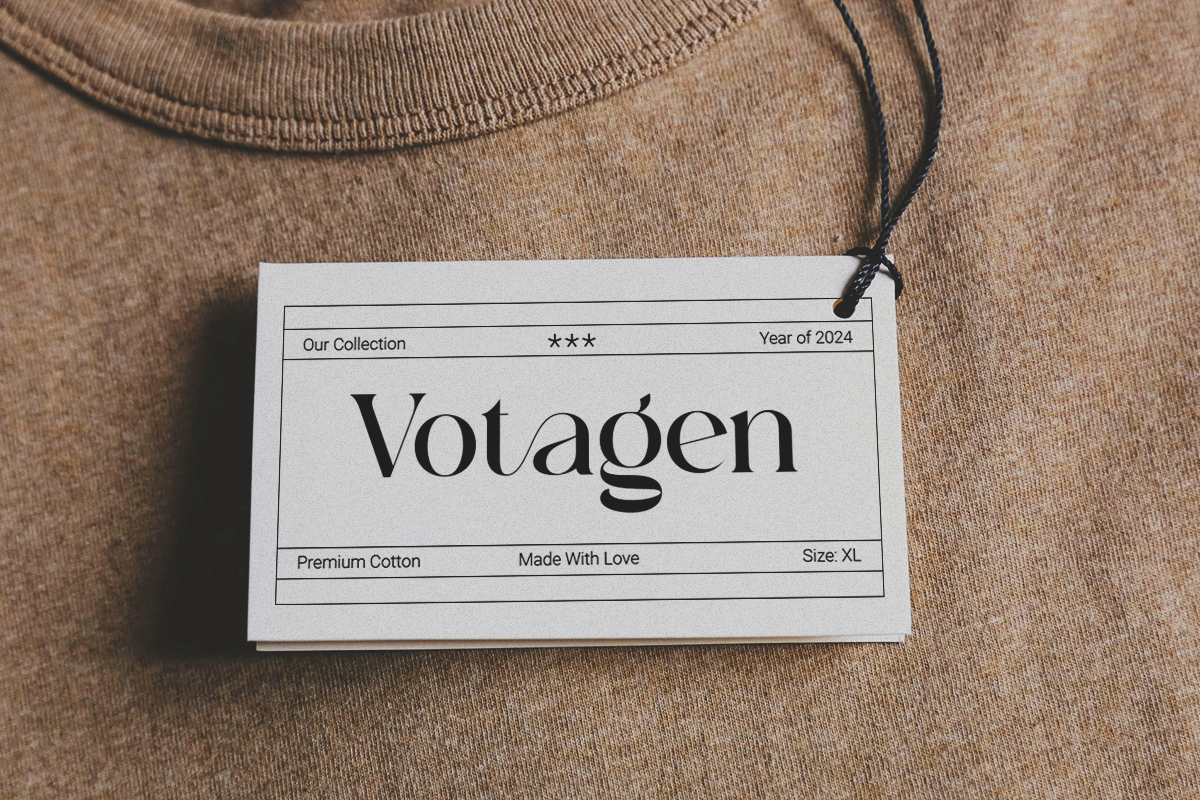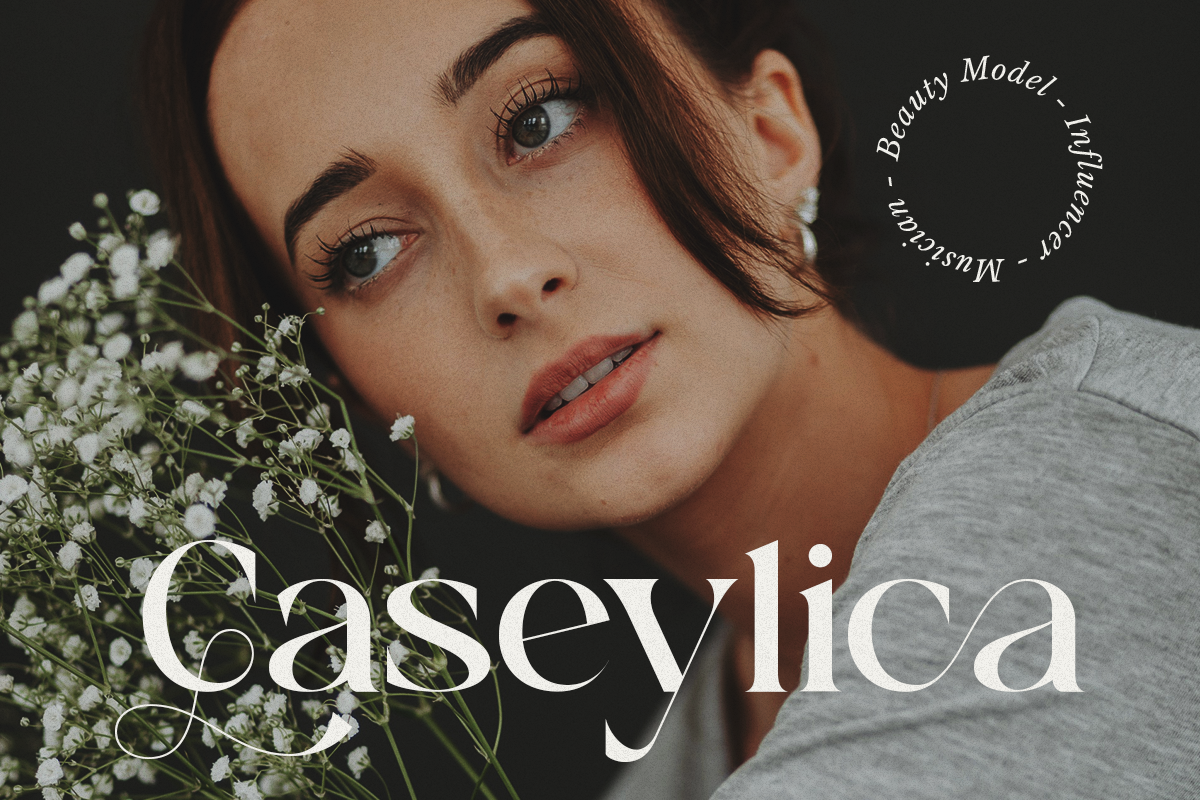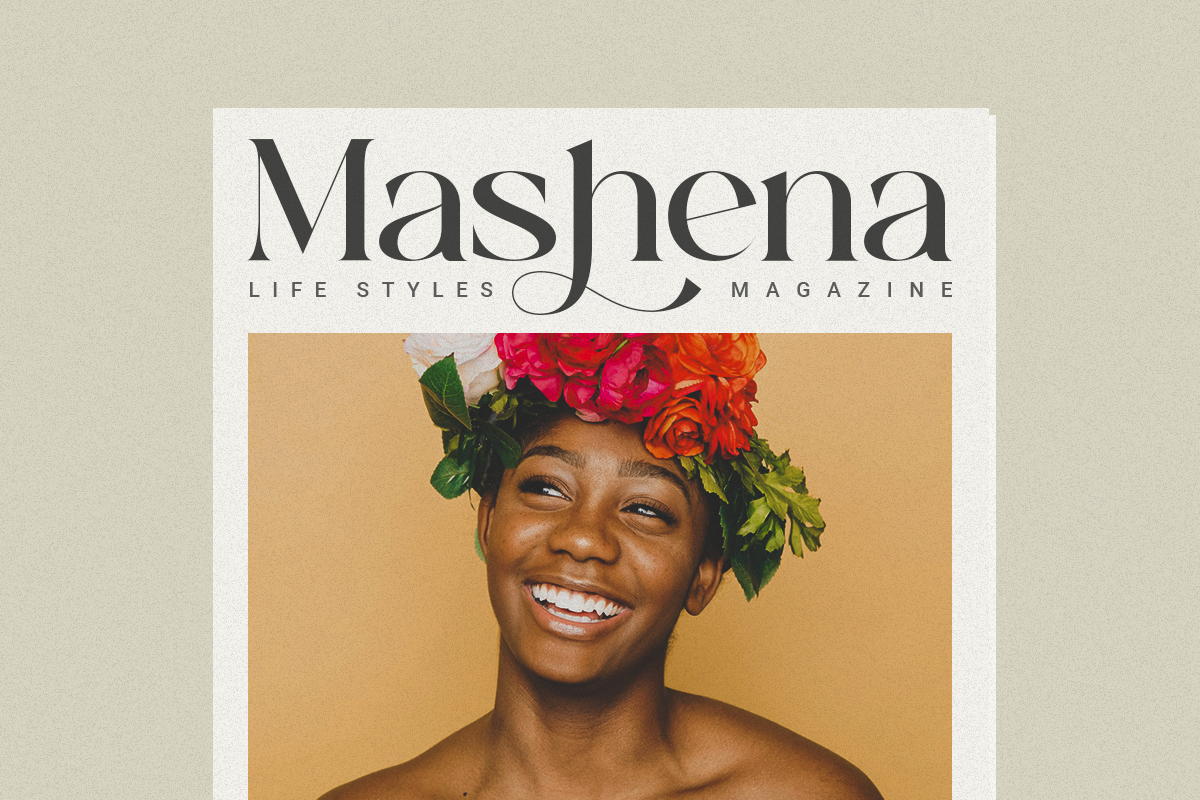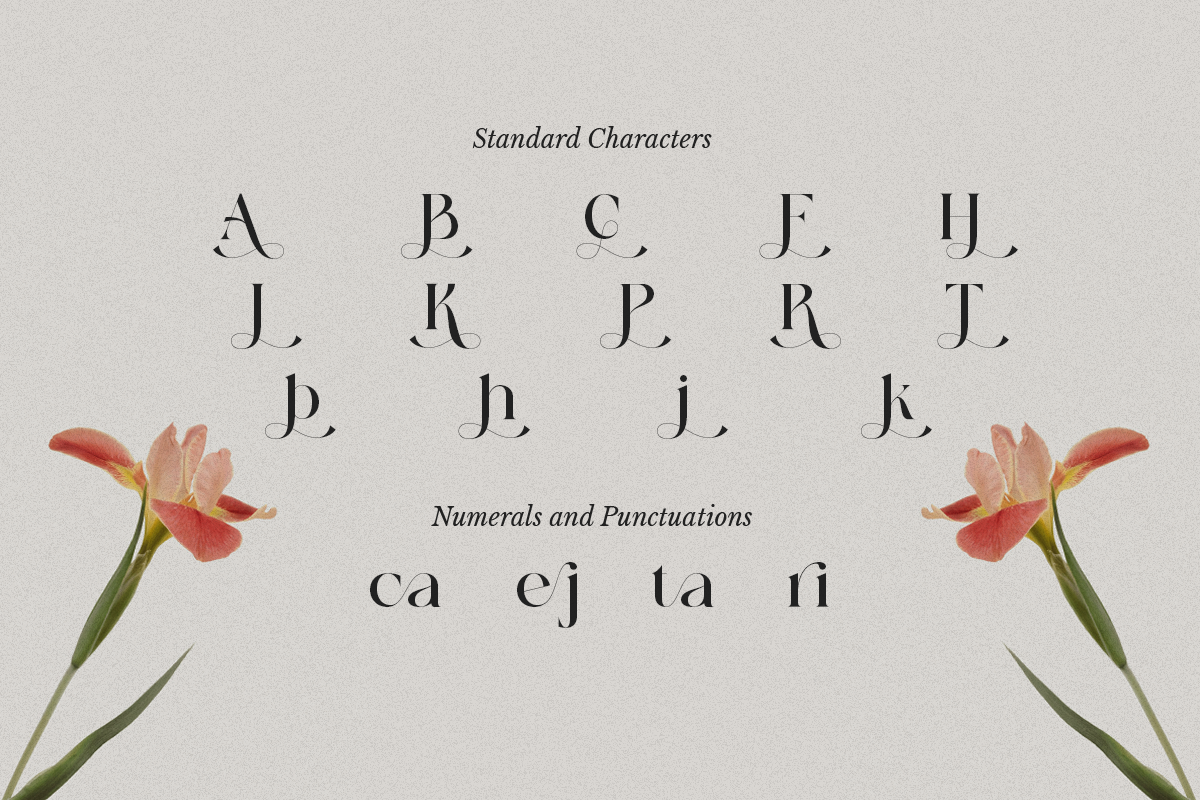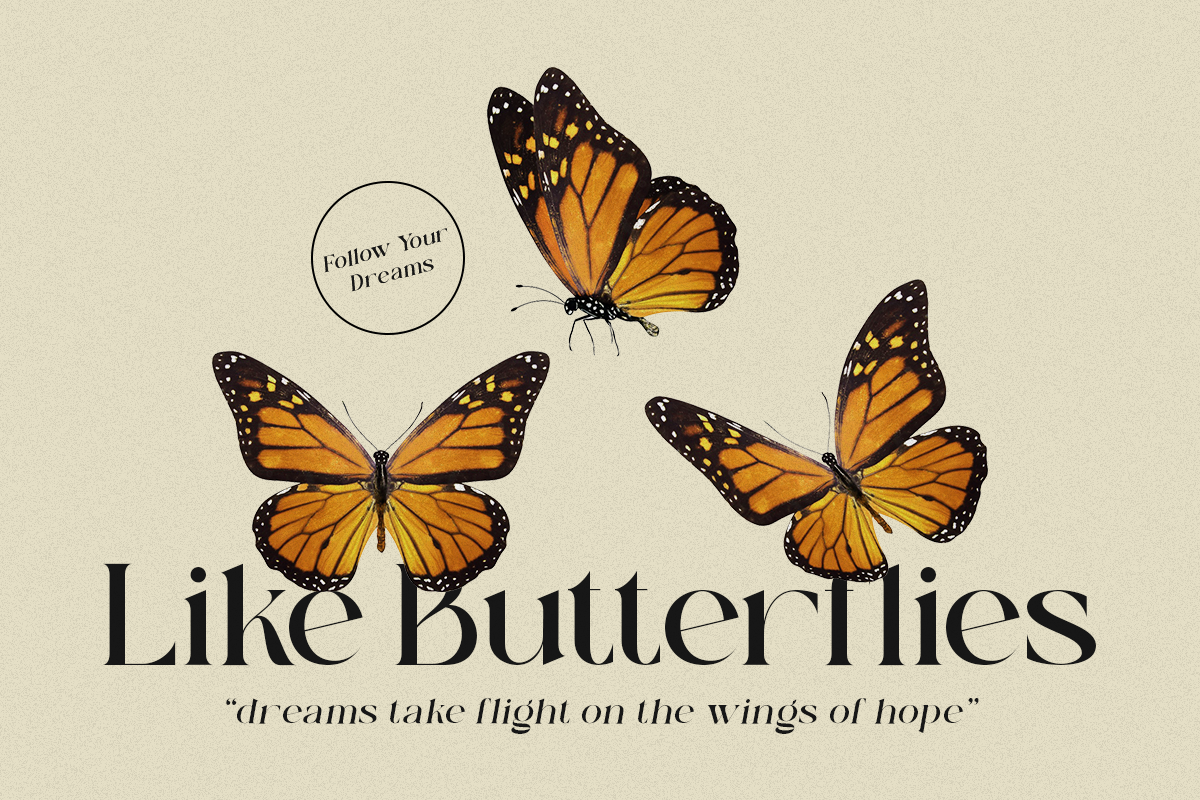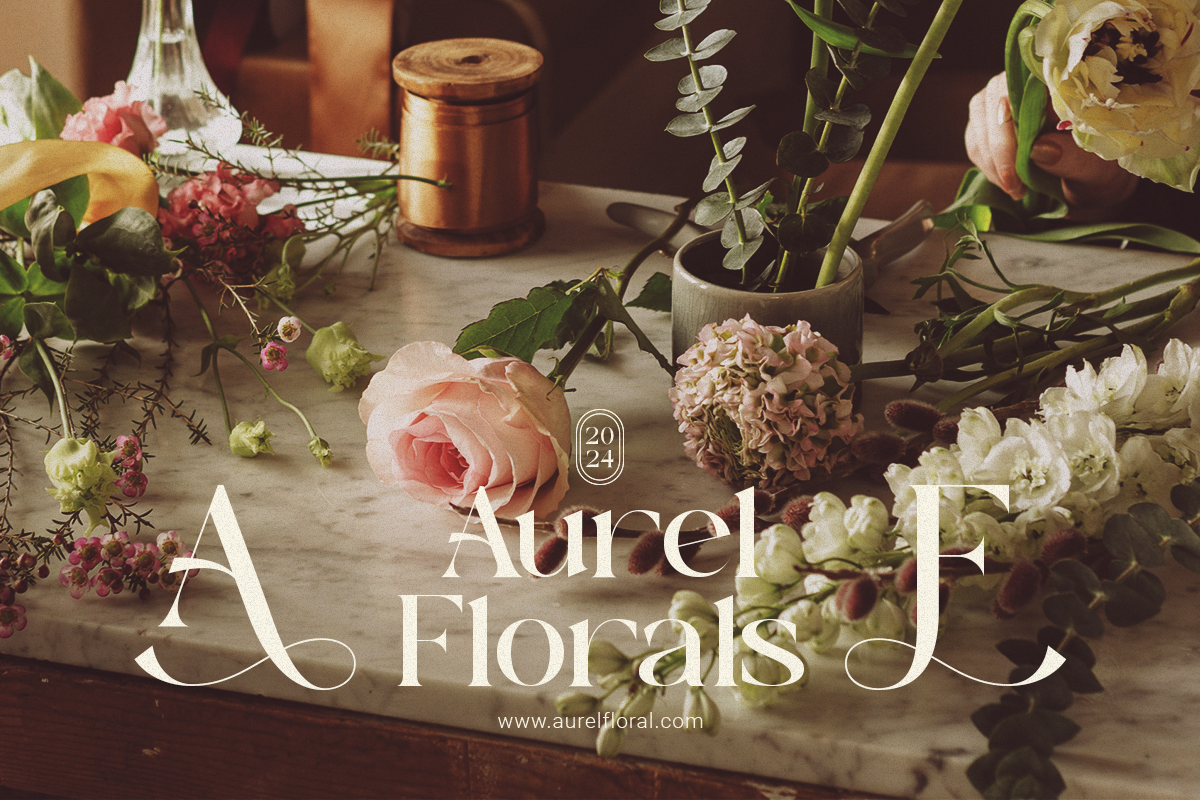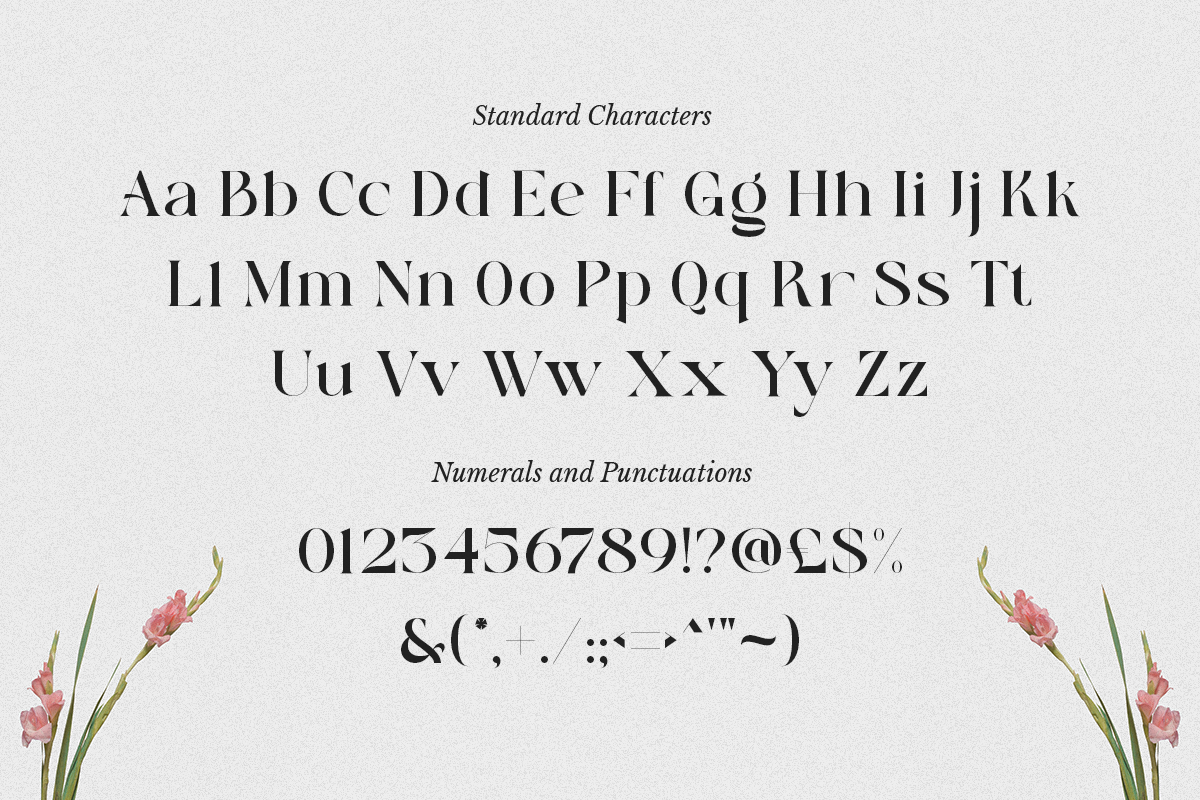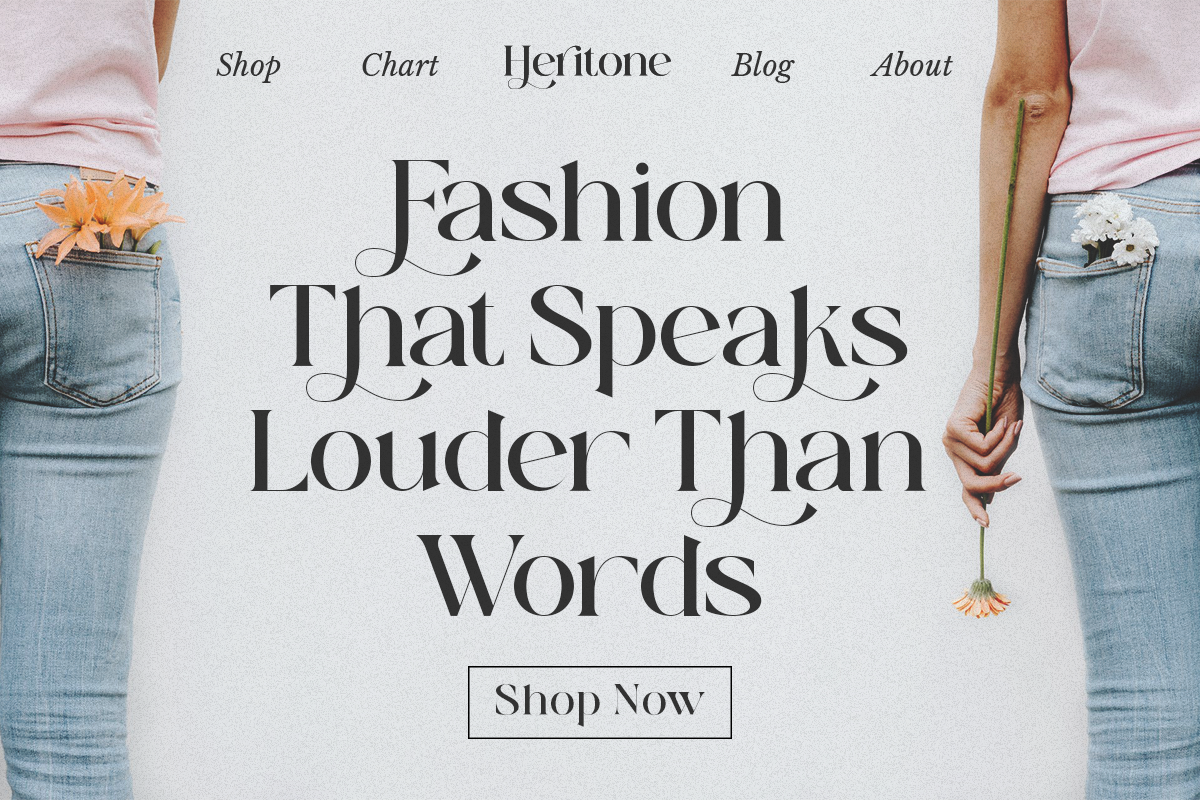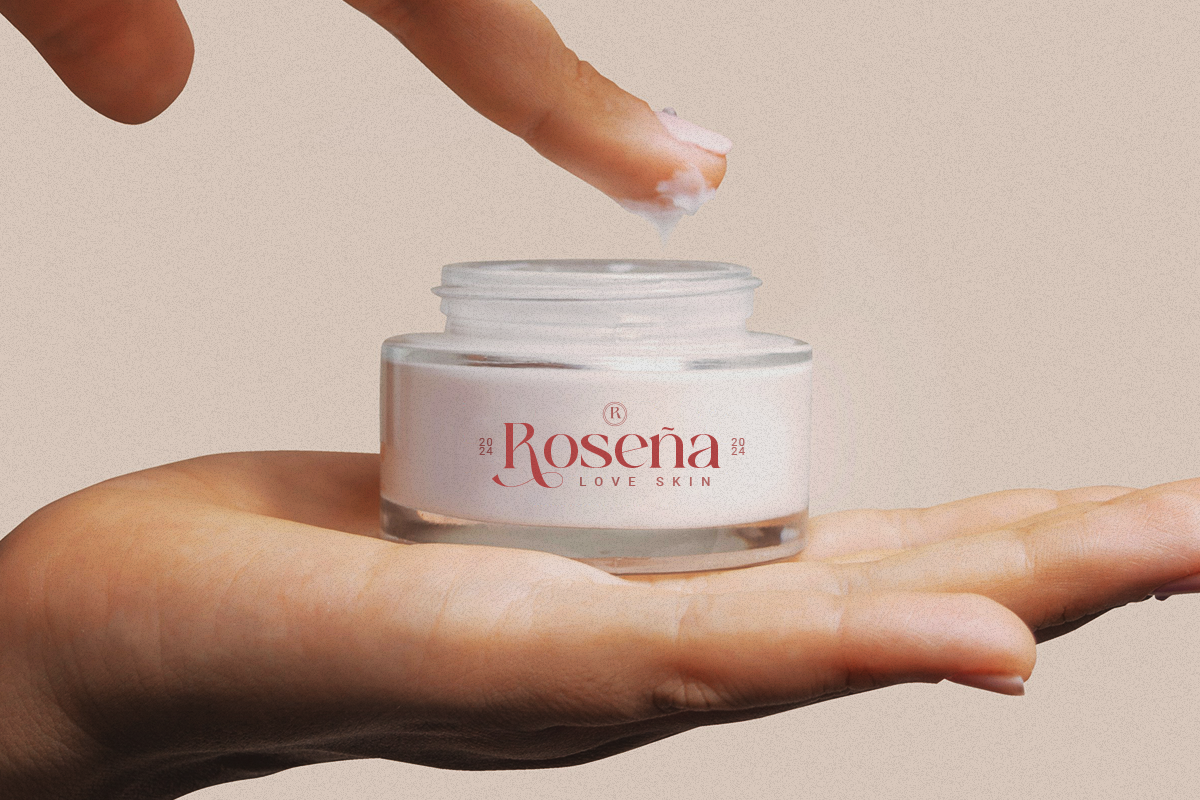
Heart Breaker - Classy Elegant Serif
Heart Breaker is a stunning serif font that exudes elegance and sophistication. Perfectly crafted for high-end branding, wedding invitations, fashion magazines, and luxury products, this font combines classic beauty with a modern twist. The unique and stylish letterforms of Heart Breaker make it ideal for creating standout headlines, logos, and editorial layouts. With its versatile design, Heart Breaker adds a touch of class to any project, ensuring your work looks both professional and timeless.
- Stylish ligatures
- Elegant swashes
Ideal for:
- Branding & Logo Design
- Wedding Invitations & Stationery
- Fashion & Lifestyle Magazines
- Luxury Packaging
- Editorial Design
Give your designs a classy and elegant touch with Heart Breaker – the perfect serif font for those who appreciate uniqueness and style.